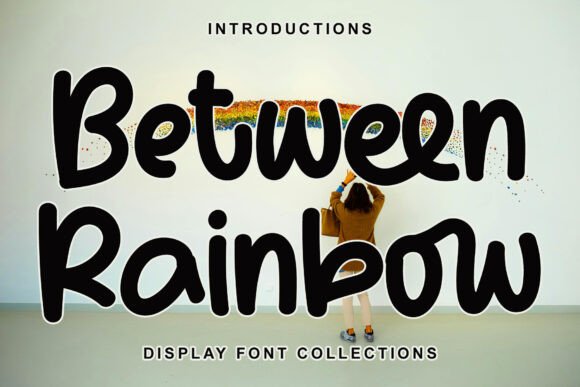
Introducing Between Rainbow Font: The Ultimate Choice for Cheerful Designs
Are you looking for a font that can add a touch of fun and quirkiness to your designs? Look no further than Between Rainbow Font! This delightful display font is perfect for use on cheerful topics, making it an ideal choice for children’s themed designs, especially when combined with bright colors.
What Makes Between Rainbow Font So Special?
Between Rainbow Font is a unique and playful font that is sure to capture the attention of your audience. Its fun and quirky design makes it perfect for use on a variety of projects, from children’s books and educational materials to posters, flyers, and more.
One of the standout features of Between Rainbow Font is its PUA (Private Use Area) encoding. This means that you can access all of the amazing glyphs and ligatures with ease, giving you a wide range of creative possibilities.
The Perfect Choice for Children’s Themed Designs
Between Rainbow Font is particularly well-suited for children’s themed designs. Its bright and cheerful design is sure to appeal to kids, making it perfect for use on:
- Children’s books and educational materials
- Kids’ party invitations and decorations
- Children’s clothing and accessories
- Toys and games
The font’s playful design also makes it a great choice for use on posters, flyers, and other marketing materials aimed at kids.
Key Features of Between Rainbow Font
Here are just a few of the key features that make Between Rainbow Font so special:
- PUA encoded: Access all of the amazing glyphs and ligatures with ease
- Fun and quirky design: Perfect for use on cheerful topics
- Bright and colorful: Ideal for use on children’s themed designs
- Display font: Perfect for use on headings, titles, and other display text
Tips for Using Between Rainbow Font
Here are a few tips for getting the most out of Between Rainbow Font:
- Use it with bright colors: The font’s playful design is perfect for use with bright, bold colors
- Experiment with glyphs and ligatures: Take advantage of the font’s PUA encoding to add unique touches to your designs
- Use it for display text: The font’s bold and playful design makes it perfect for use on headings, titles, and other display text
In conclusion, Between Rainbow Font is a fun and quirky display font that is perfect for use on cheerful topics. Its PUA encoding and wide range of glyphs and ligatures make it a versatile choice for designers, while its bright and colorful design makes it a great choice for children’s themed designs.
Whether you’re designing a children’s book, creating a poster for a kids’ party, or simply looking for a fun and playful font to add to your collection, Between Rainbow Font is an excellent choice.